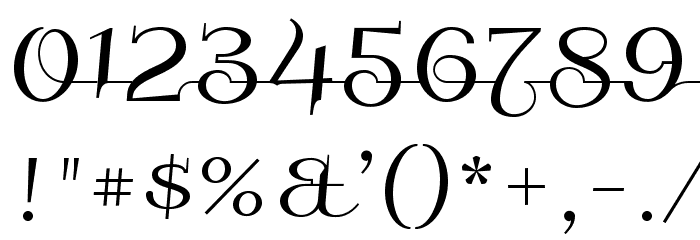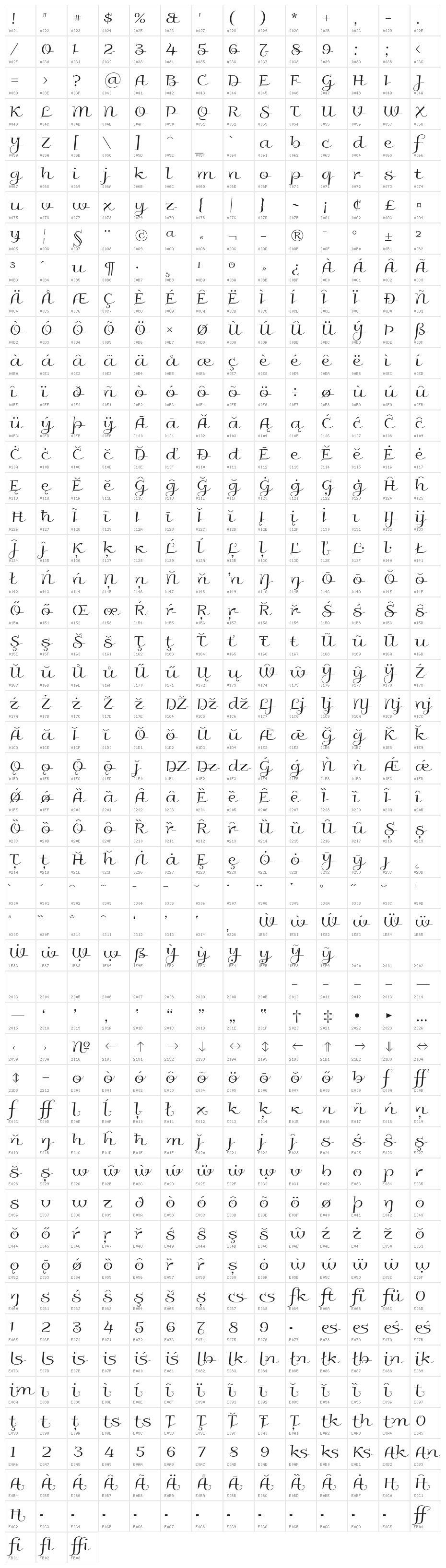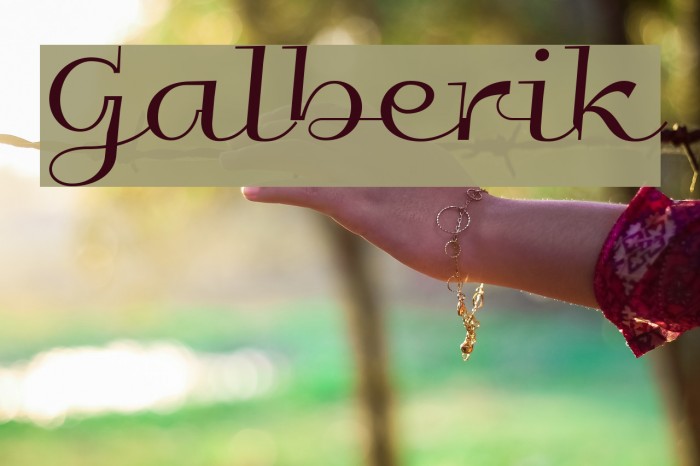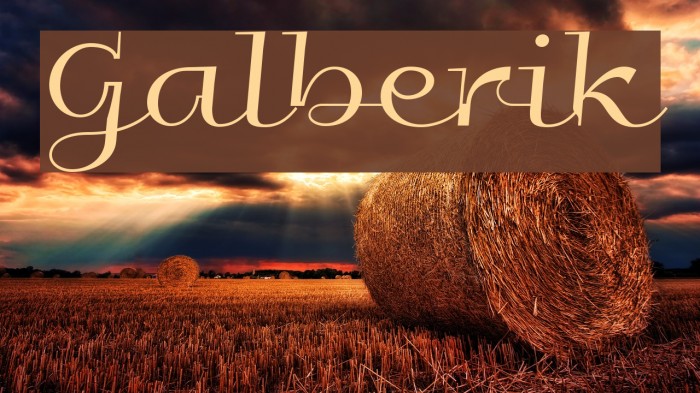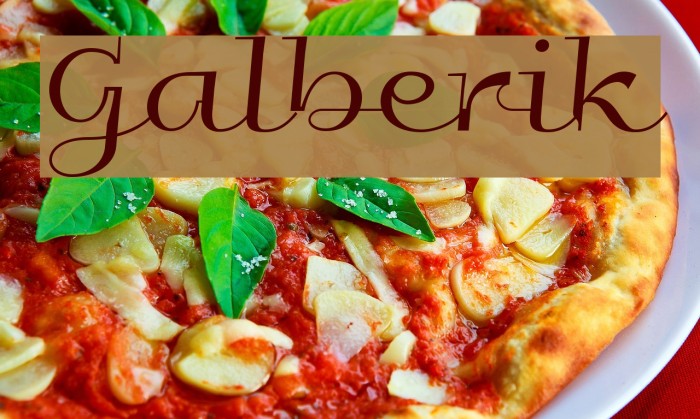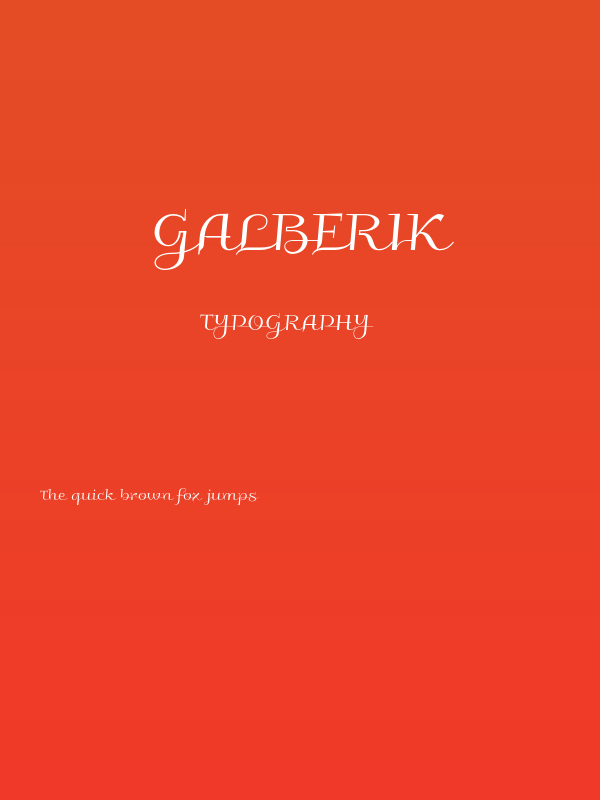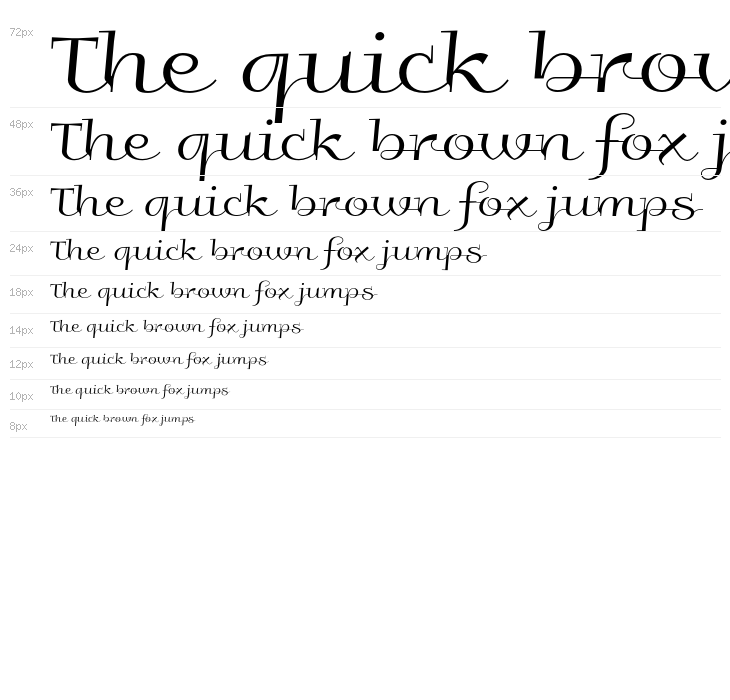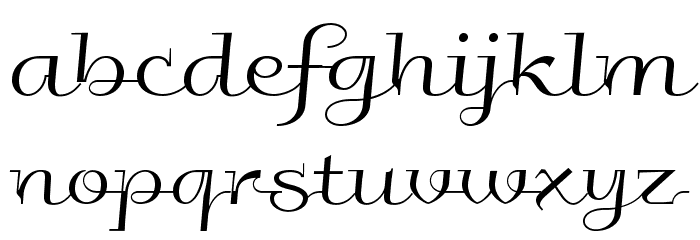
Galberik Font
Galberik Description
This font features a sophisticated and elegant script style, characterized by its flowing and connected letterforms. The uppercase letters exhibit a graceful flair with subtle curves and loops, giving them a refined appearance. The lowercase letters maintain a consistent flow, enhancing readability while retaining a stylish look. The numerals are distinct and harmonize well with the overall script style, ensuring clarity. Special characters are thoughtfully designed to match the aesthetic, making this font versatile for various uses. The font's design is both modern and timeless, suitable for projects that require a touch of elegance and sophistication.
| Overall Style | Elegant, Sophisticated |
| Proposed Projects | Ideal for wedding invitations, elegant branding, luxury product packaging, and high-end editorial design. |